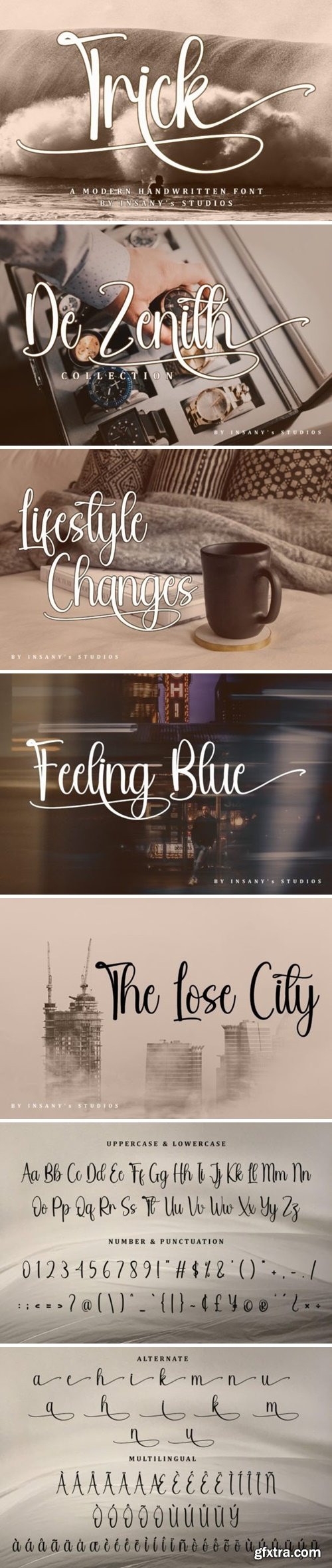
Trick is a soft and sweet handwritten script font. With a fresh and modern touch, this font is ideal for writing wedding invitations, cards, or any other design that might need a lovely and sweet touch. This font is PUA encoded which means you can access all of the amazing glyphs and alternates with ease!